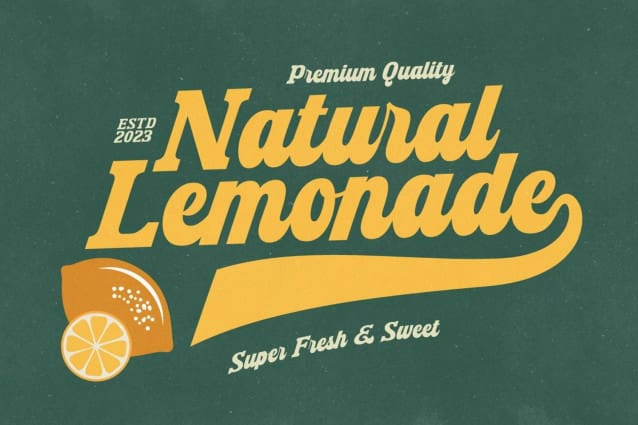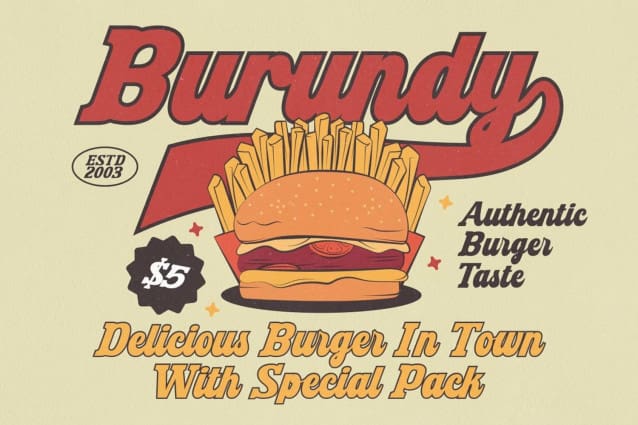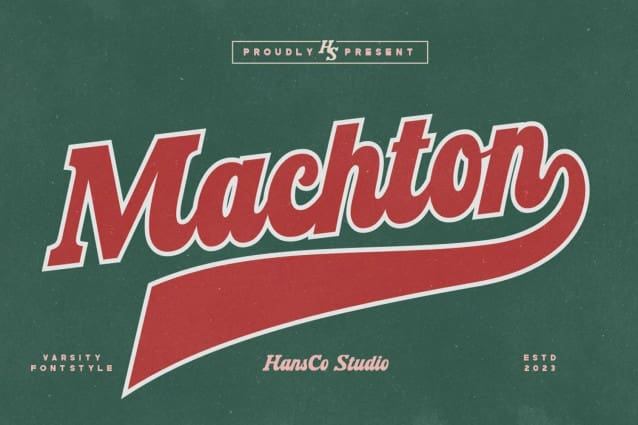
Machton Retro Font
Machton Retro Font is a Varsity / Jersey font style. Elevate your design projects to new heights with our premium digital fonts tailored for Canva and Cricut users. Don’t settle for ordinary fonts when you can make your designs extraordinary. Unlock your design potential and grab our digital font product today. With our fonts, you’re not just designing; you’re crafting experiences, sparking emotions, and leaving a lasting impact. Get started and let your creativity flow like never before!